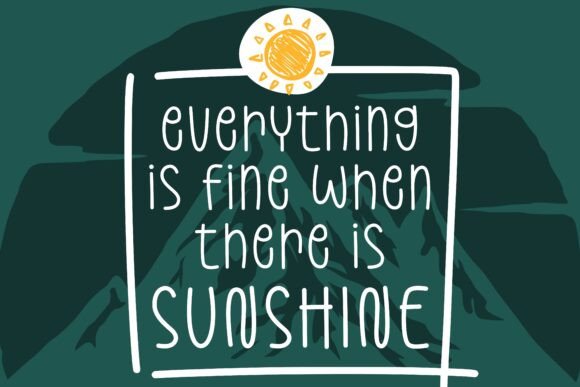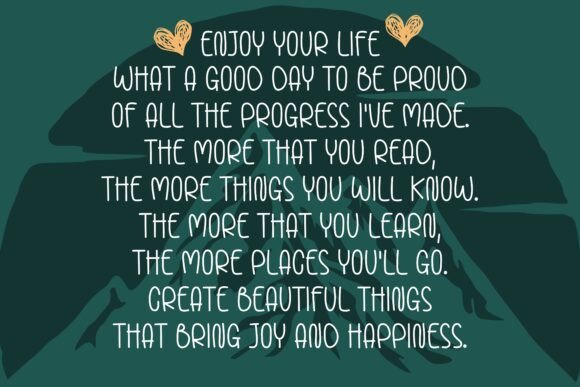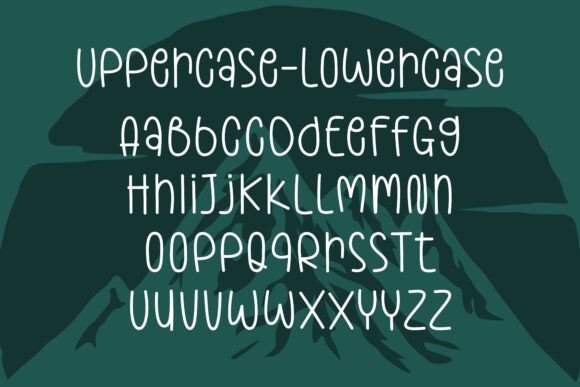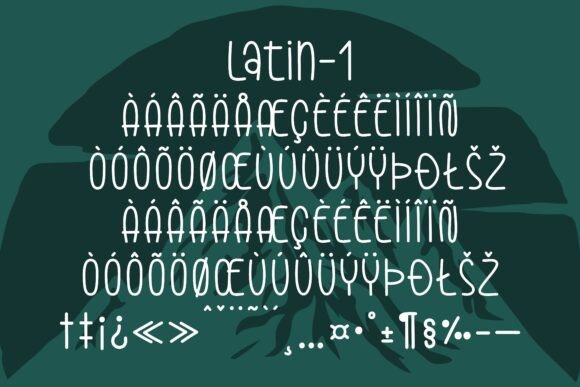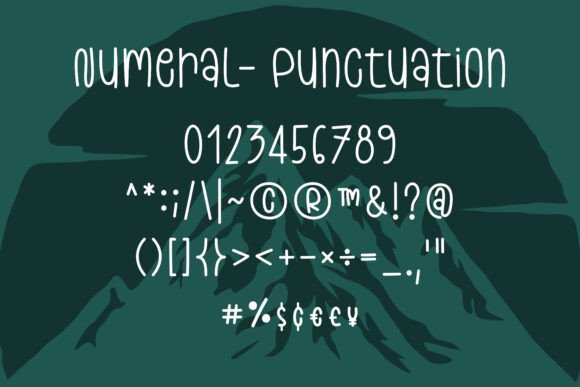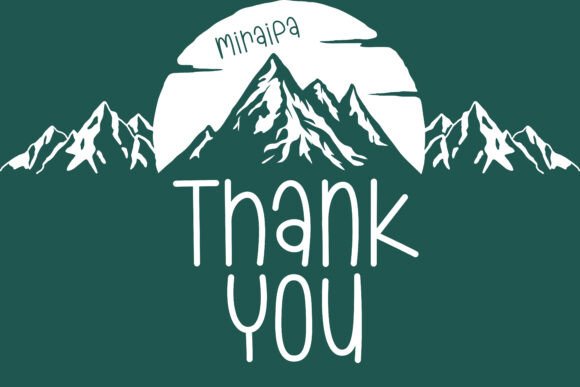
Introducing Chiangmai Font: The Playful and Friendly Handwritten Sans Serif Font
Are you looking for a font that adds a touch of playfulness and friendliness to your design projects? Look no further than Chiangmai Font! Designed in a handwritten sans serif font style, Chiangmai is perfect for a wide range of fun projects, from Easter and back to school designs to wedding and party decorations. In this article, we’ll explore the features and benefits of Chiangmai Font, and show you how to make the most of this versatile and charming font.
What is Chiangmai Font?
Chiangmai Font is a beautifully designed handwritten sans serif font that exudes a sense of playfulness and friendliness. Its unique and quirky style makes it perfect for designs that require a personal touch. Whether you’re working on a DIY project, creating social media posts, or designing greeting cards, Chiangmai Font is sure to bring a smile to your audience’s faces.
Features of Chiangmai Font
So, what makes Chiangmai Font so special? Here are just a few of its key features:
- Playful and friendly style: Chiangmai Font has a unique and playful style that’s perfect for designs that require a personal touch.
- Handwritten sans serif font: The font’s handwritten style gives it a warm and approachable feel, while its sans serif design makes it easy to read.
- Versatile: Chiangmai Font can be used for a wide range of design projects, from fun and playful designs to more formal and elegant ones.
Uses for Chiangmai Font
So, what can you use Chiangmai Font for? The possibilities are endless! Here are a few ideas to get you started:
- Easter designs: Create fun and playful Easter designs, such as egg decorations, bunny invitations, and spring-themed posters.
- Back to school designs: Design fun and colorful back to school materials, such as stickers, posters, and worksheets.
- Wedding and party decorations: Use Chiangmai Font to create beautiful and unique wedding and party decorations, such as invitations, banners, and centerpieces.
- Fall and Halloween designs: Create spooky and fun designs for Fall and Halloween, such as pumpkin decorations, ghostly invitations, and Halloween-themed posters.
- Christmas designs: Design beautiful and festive Christmas designs, such as holiday cards, gift tags, and Christmas tree decorations.
- Blogs and social media posts: Use Chiangmai Font to add a personal touch to your blog posts and social media updates.
- Clothing and child-related designs: Design fun and playful clothing and child-related designs, such as t-shirts, baby onesies, and kids’ party invitations.
- Greeting cards and invitations: Create beautiful and unique greeting cards and invitations for any occasion.
Why Choose Chiangmai Font?
So, why should you choose Chiangmai Font for your design projects? Here are just a few reasons:
- Unique and playful style: Chiangmai Font has a unique and playful style that’s sure to stand out from the crowd.
- Versatile: Chiangmai Font can be used for a wide range of design projects, from fun and playful designs to more formal and elegant ones.
In conclusion, Chiangmai Font is a beautifully designed handwritten sans serif font that’s perfect for a wide range of design projects. Its unique and playful style makes it a great addition to any font library, and its ease of use makes it perfect for designers of all levels. Whether you’re working on a DIY project, creating social media posts, or designing greeting cards, Chiangmai Font is sure to bring a touch of playfulness and friendliness to your designs. So why wait? Add Chiangmai Font to your font library today and start creating amazing designs!